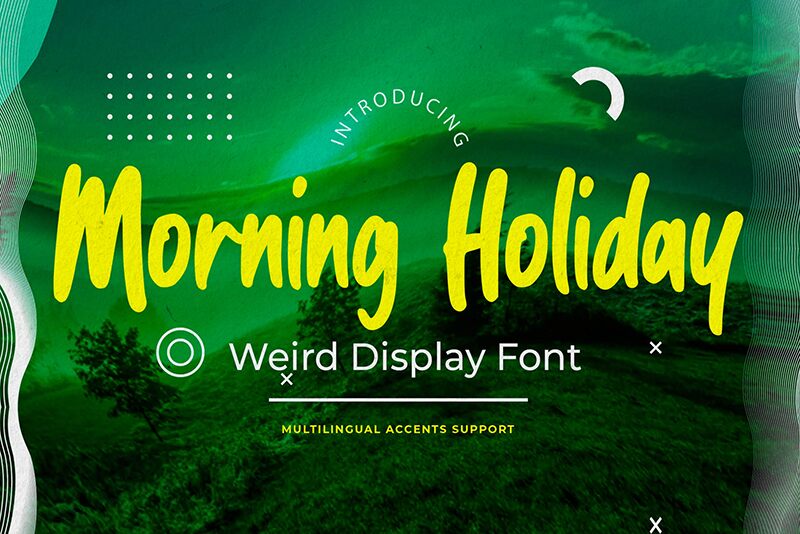
Morning Holiday
Morning Holiday, a weird display font designed by Gassstype, is a condensed handwritten font. With its modern style and dramatic movement, this font adds a casual and quick touch to any project.
It is perfect for labels, posters, and project designs that aim to look modern, authentic, and elegant. Morning Holiday is ideal for various purposes such as quotes, branding, packaging, greeting cards, websites, photography overlays, signs, scrapbooking, tags and more!
This font also features textured and authentic characteristics for a natural look. Activate the Ligatures glyphs in the OpenType panel to enhance your designs even further.